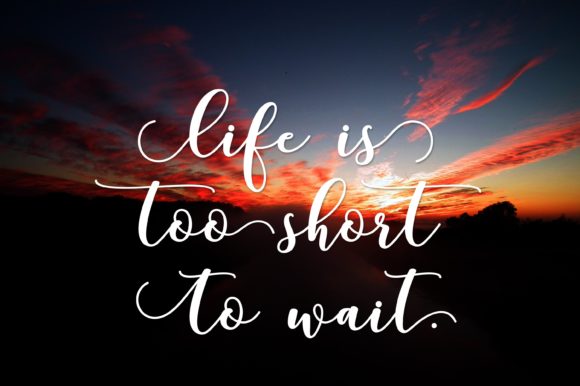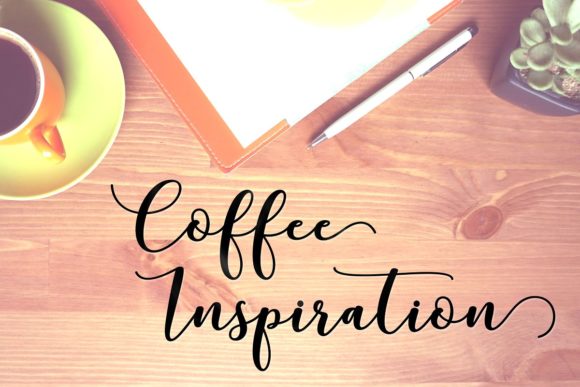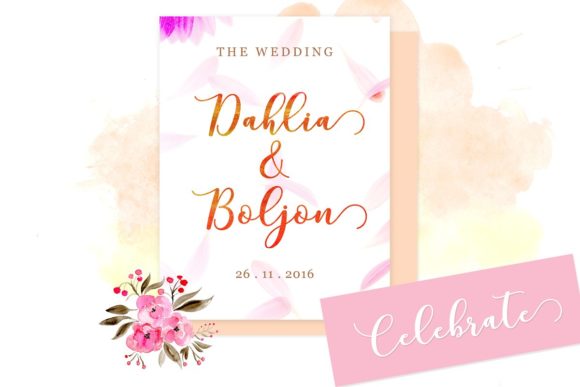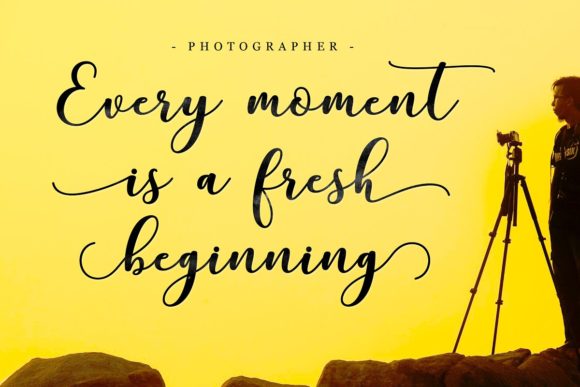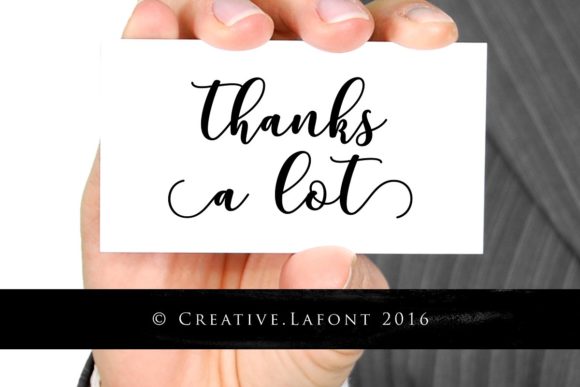
Mottona Bold Script Font
About Mottona Bold Script Font
Mottona Bold Script is modern script font perfect for a variety of projects. Every single letter has been carefully crafted to make your text look beautiful.